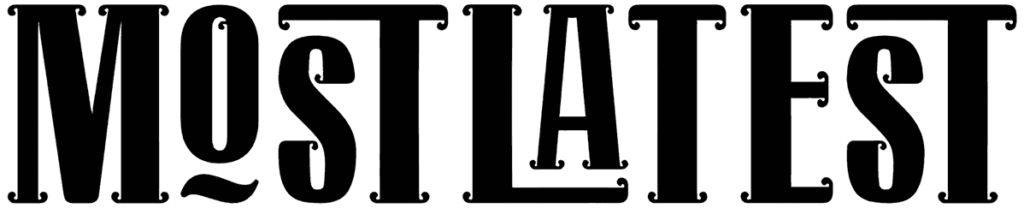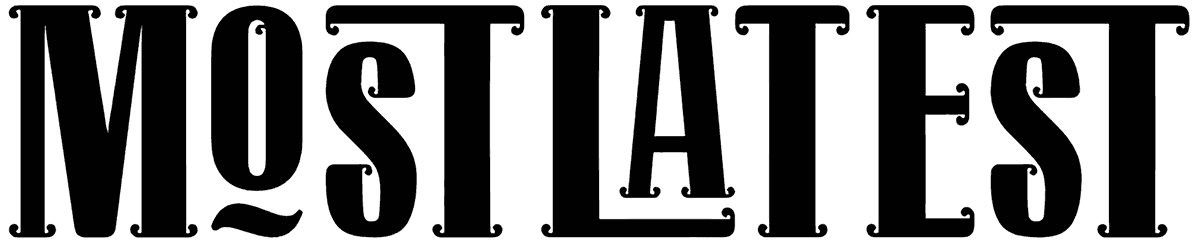
Mostlatest Font
If you want to take a trip to the past with your design, don’t miss this offer. As a retro font with a memorable and vintage vibe, Mostlatest has an iconic letter style. Even if Mostlatest doesn’t support lowercase letters and numbers, it would serve as a nice decoration for a lot of creative designs, such as posters, banners, logos, covers, illustrations, and so on.
Mostlatest vintage font is a typeface that is made all characters in uppercase. An excellent choice to add the right amount of retro touch. This typeface with artistic style looks very interesting for loads of different projects and promotions. A great all-in-one package for your logo, book cover, poster, t-shirt, branding, and advertisement needs.